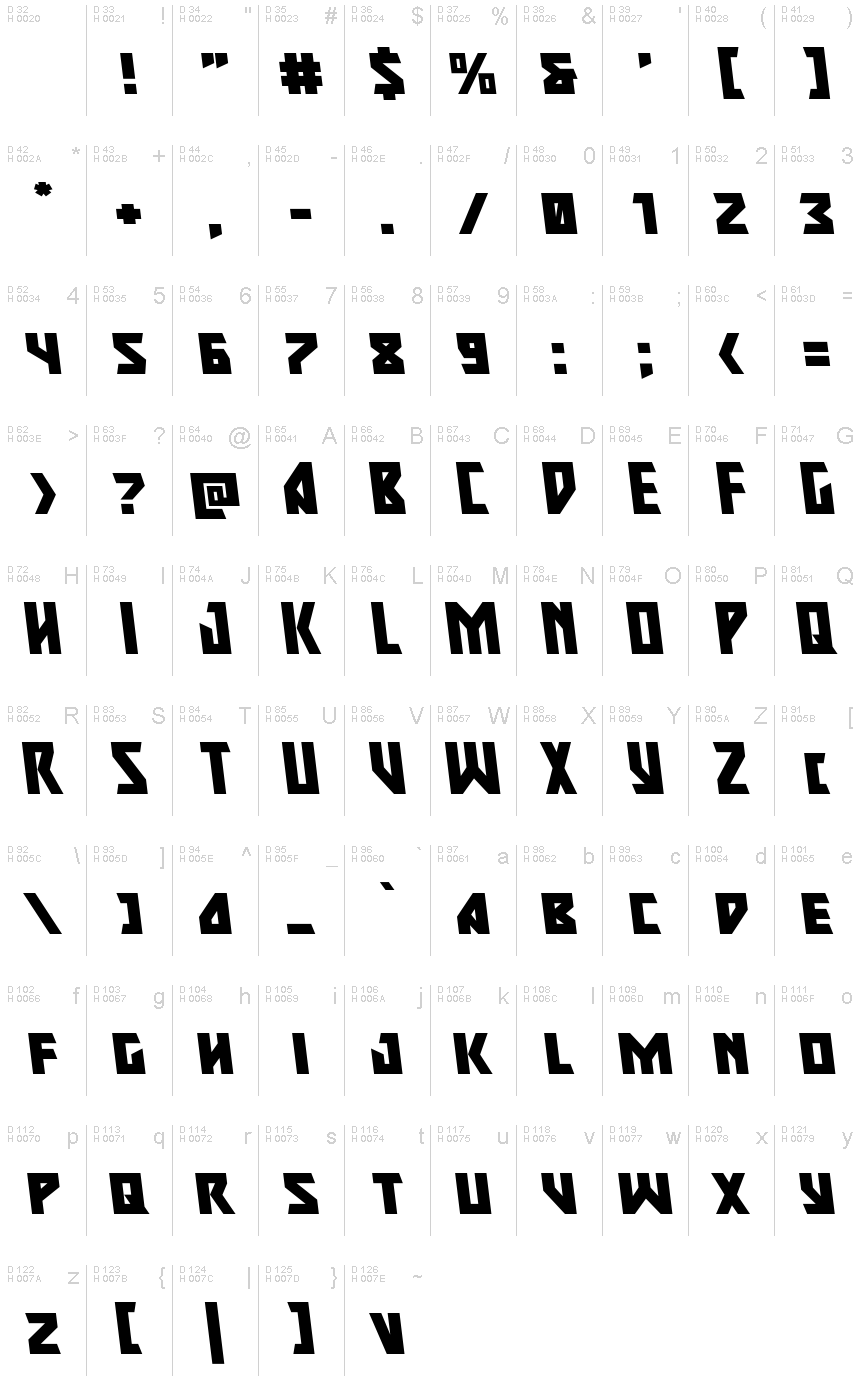
Major Force Expanded Leftalic
Major Force Expanded Leftalic is a bold and futuristic display font that commands attention. Its condensed width and angled letterforms create a dynamic, angular aesthetic, evoking a sense of strength and technological prowess. The font's sharp edges and distinctive angles lend it an almost industrial-inspired feel, making it well-suited for a range of modern design applications, from branding and packaging to poster designs and editorial layouts. Its bold presence and clean, minimalist style make it a versatile choice for designers seeking to craft impactful, visually striking compositions.
The font's unique expanded and leftalic characteristics further contribute to its distinctive visual identity. These features work together to produce a font that is both eye-catching and highly legible, ensuring it can effectively convey messages and branding across various media.